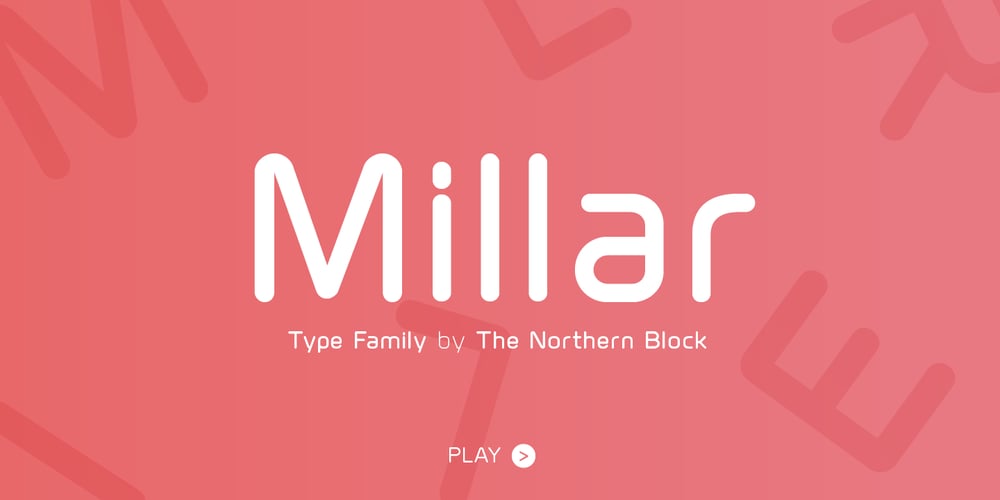
Millar Font Family was designed by Jonathan Hill and published by The Northern Block. Millar contains 7 styles and family package options. An elegant monoline typeface with smooth corner detailing. The simple linear design is best suited to identity, editorial and on screen uses. Details include 7 weights, a complete character set, manually edited kerning and Euro symbol.